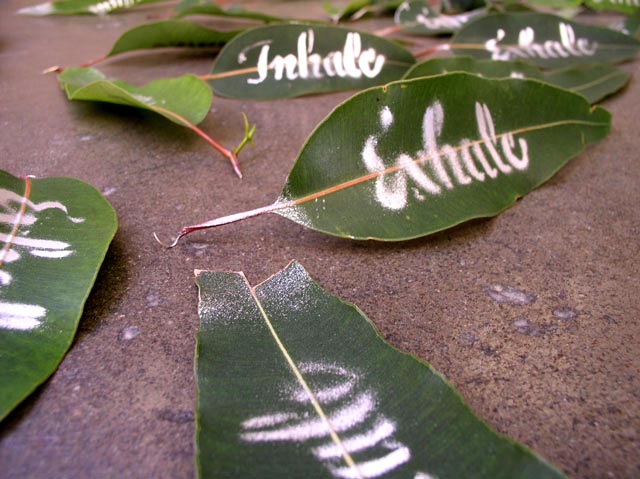
|  | Katharina Broeckelmann - inhale, exhale
Inside this assignment I decided to address the topic of environmental
awareness. In modern urban landscapes people often seem disconnected and
alienated from nature, ignoring the fact that mankind's survival is only
granted with an intact nature around us. With Inhale/ Exhale I wanted to
bring attention to the interdependency between population and vegetation -
if there are no trees, there will be no oxygen for us to breathe.
I designed the type in order to represent fluent and organic shapes,
almost breath-like, which would also work for stenciling. Strategically I
placed it all around the city near plants and trees. In the future I am
hoping to be able to use Water-jet technology to cut out my type out of
hundreds of leaf at the same time. | |